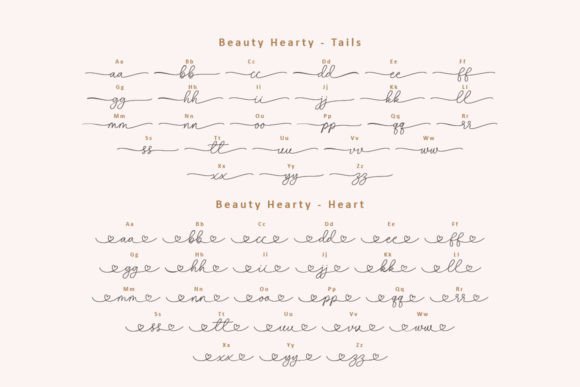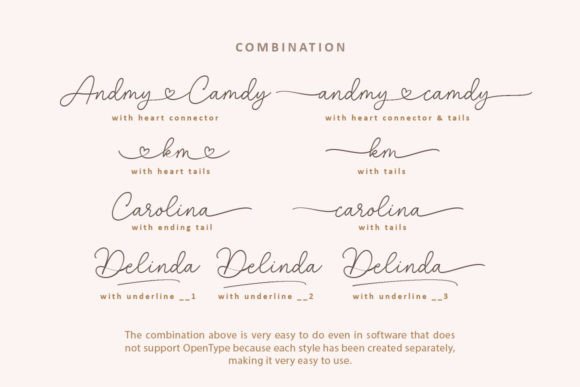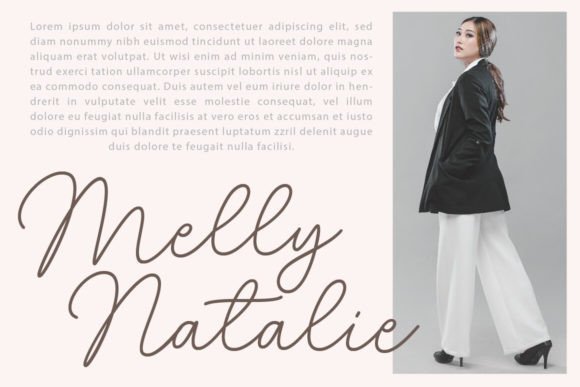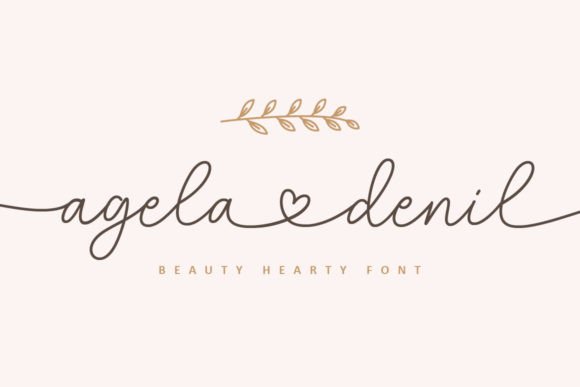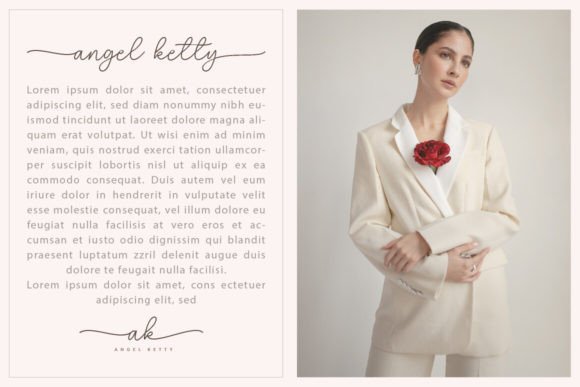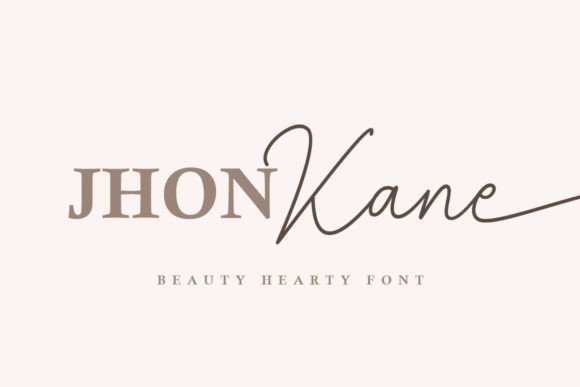
Introducing Beauty Hearty Font: The Epitome of Elegance and Charm
In the world of typography, few fonts manage to capture the essence of elegance and charm as effortlessly as Beauty Hearty Font. This exquisite handwritten script font is a masterpiece of design, boasting captivating letter alternatives and enchanting tails that adorn the beginning and end of each stroke. What truly sets Beauty Hearty Font apart, however, is its distinctive heart-shaped connecting tail, an innovative feature that infuses the font with a touch of romance and whimsy.
A Closer Look at Beauty Hearty Font’s Unique Features
Beauty Hearty Font is not just another script font; it’s an experience. Its design is meticulously crafted to evoke a sense of sophistication and grace. The font’s elegant strokes and beautiful ligatures make it perfect for a variety of design projects, from wedding invitations and branding materials to packaging and digital content. The heart-shaped connecting tails are a standout feature, providing a unique charm that can elevate any design from ordinary to extraordinary.
Ease of Use: No Special Software Required
One of the most significant advantages of Beauty Hearty Font is its ease of use. Designers often worry about the compatibility of script fonts with various software, especially when it comes to utilizing advanced features like OpenType. However, with Beauty Hearty Font, you don’t need to worry about using software that supports OpenType to access the heart connector, beginning, and ending tails. These features have been made separately, ensuring that you can easily incorporate them into your designs without any hassle.
Whether you’re a professional designer or a crafter who loves to dabble in DIY projects, Beauty Hearty Font is an excellent addition to your toolkit. Its versatility means it can be used for a wide range of projects, including:
- Wedding and Event Planning: Create stunning invitations, save-the-date cards, and event signage that sets the tone for a memorable occasion.
- Branding and Marketing: Elevate your brand’s visual identity with a font that exudes elegance and sophistication.
- Stationery and Packaging: Add a personal touch to your letters, cards, and product packaging.
- Digital Content: Enhance your blog posts, social media graphics, and website content with a dash of elegance.
Why Choose Beauty Hearty Font?
With so many fonts available, why should Beauty Hearty Font be your go-to choice? Here are a few compelling reasons:
- Unique Design: Its heart-shaped connecting tails and elegant strokes offer a fresh alternative to more traditional script fonts.
- Versatility: Suitable for a wide range of projects, from digital content to print materials.
- Easy to Use: No need for OpenType software to access advanced features.
- Elegant and Charming: Adds a touch of romance and whimsy to any design.
| Font Name | Beauty Hearty Font |
| Author | Typebae |
Beauty Hearty Font is more than just a font; it’s a design statement. Its exquisite and delicate handwritten script, combined with its unique heart-shaped connecting tails, makes it the perfect choice for designers and crafters looking to add a touch of elegance and charm to their projects. With its ease of use and versatility, Beauty Hearty Font is sure to captivate and inspire. So, why wait? Explore the possibilities with Beauty Hearty Font today and take your designs to the next level.